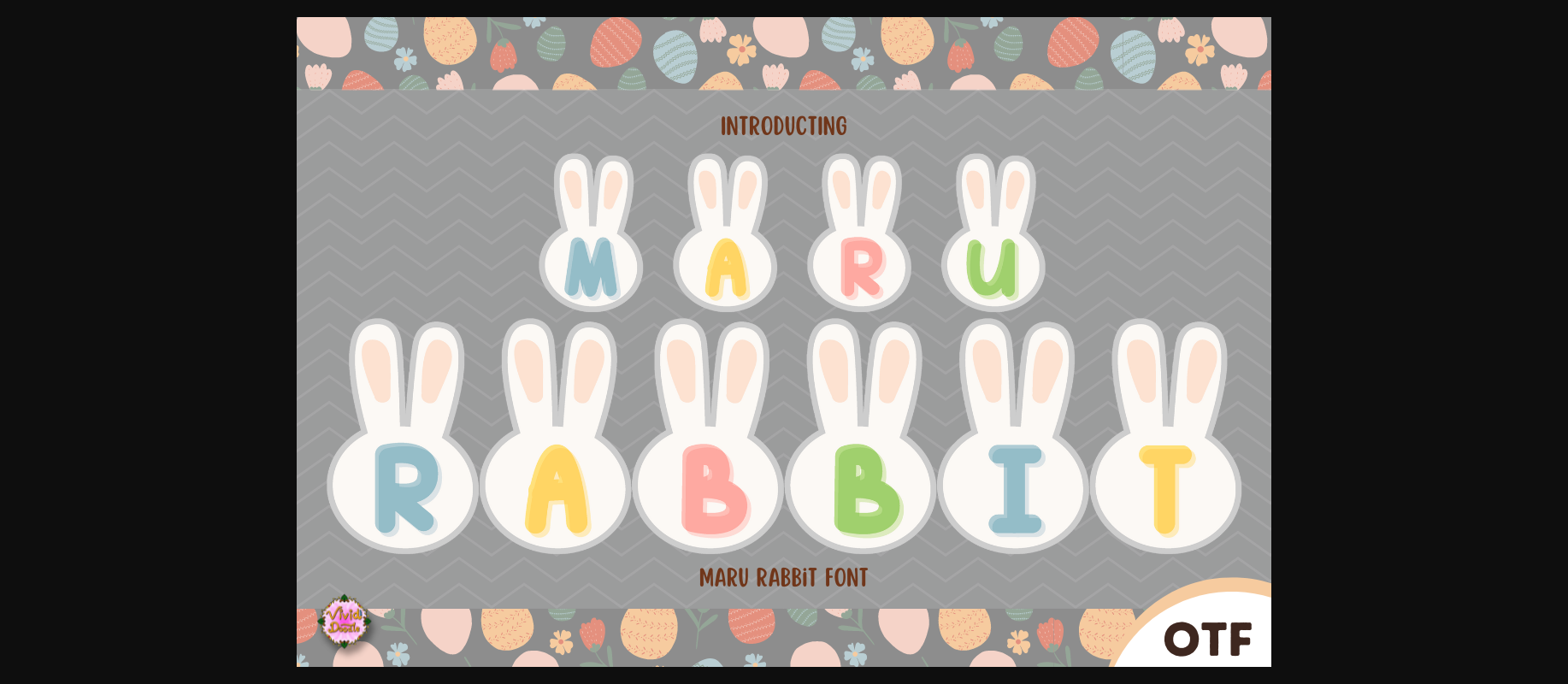
About Maru Rabbit Font
Experience the magic of Maru Rabbit, a whimsical and captivating font conceived with Easter’s jovial spirit at heart. This endearing typeface effortlessly embodies the mystical allure of fairy tales combined with the adorable appeal of a bunny rabbit. With its versatility, it’s perfect for infusing a sprinkle of charm into projects like designing T-shirts, personalizing bags, or creating your crafts and DIY projects. Maru Rabbit font is more than just a typeface; it’s a key to unlocking a world of whimsy and playfulness in your creative endeavors.